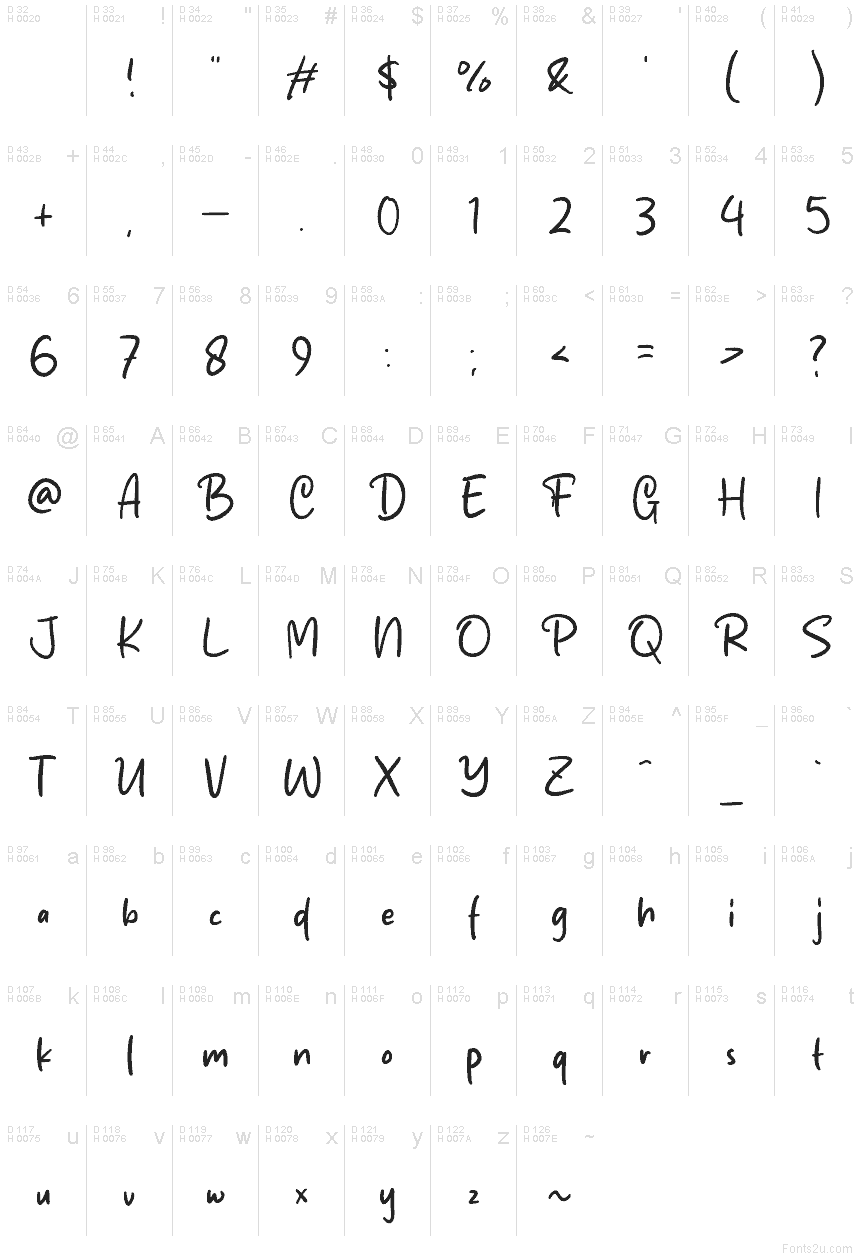
Daily Jurnal
Daily Jurnal font by MJType is a free handwritten font with a casual feel and an inviting aesthetic. The impressive typeface combines the beauty of the letters’ shape with their graceful flow, presenting simplicity in its purest form. Moreover, the overall subtle freeform script design makes it very clear and easy to read.
Use Daily Jurnal for your branding, logos, packaging designs, websites, apps, social media posts and stories. Or feature it in advertisements like flyers or posters where authenticity might play a major role in communicating your message effectively to potential clients.